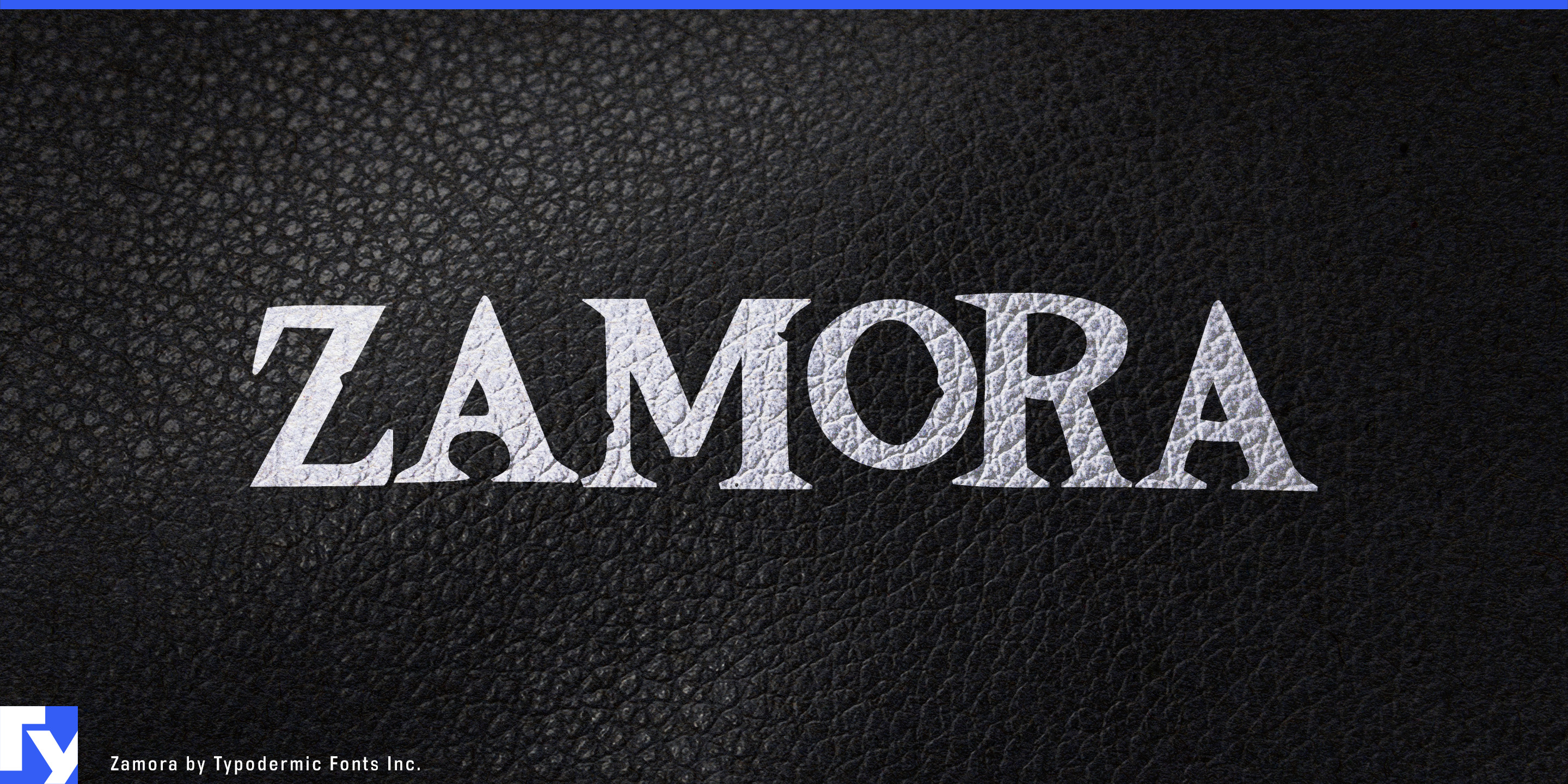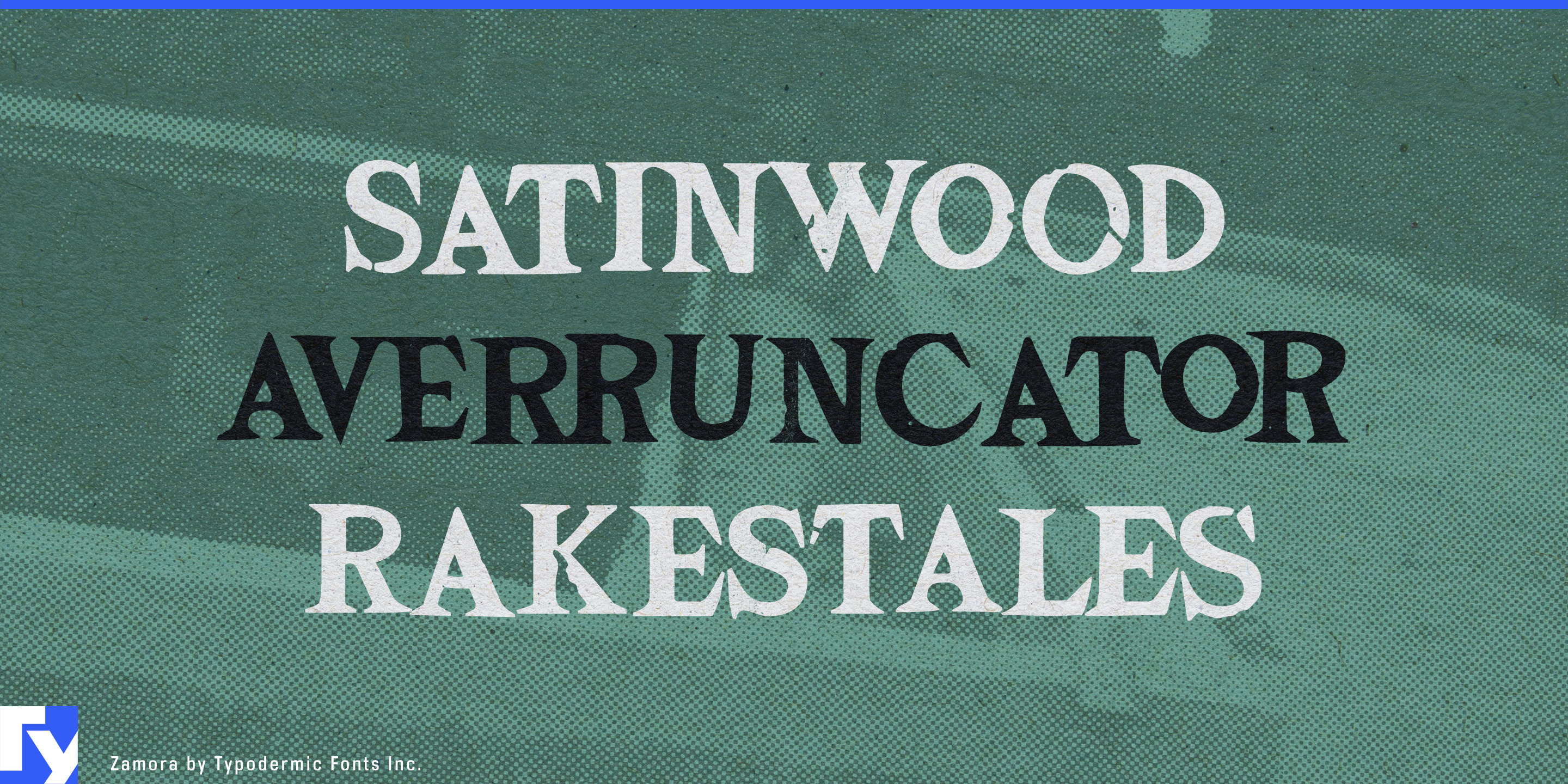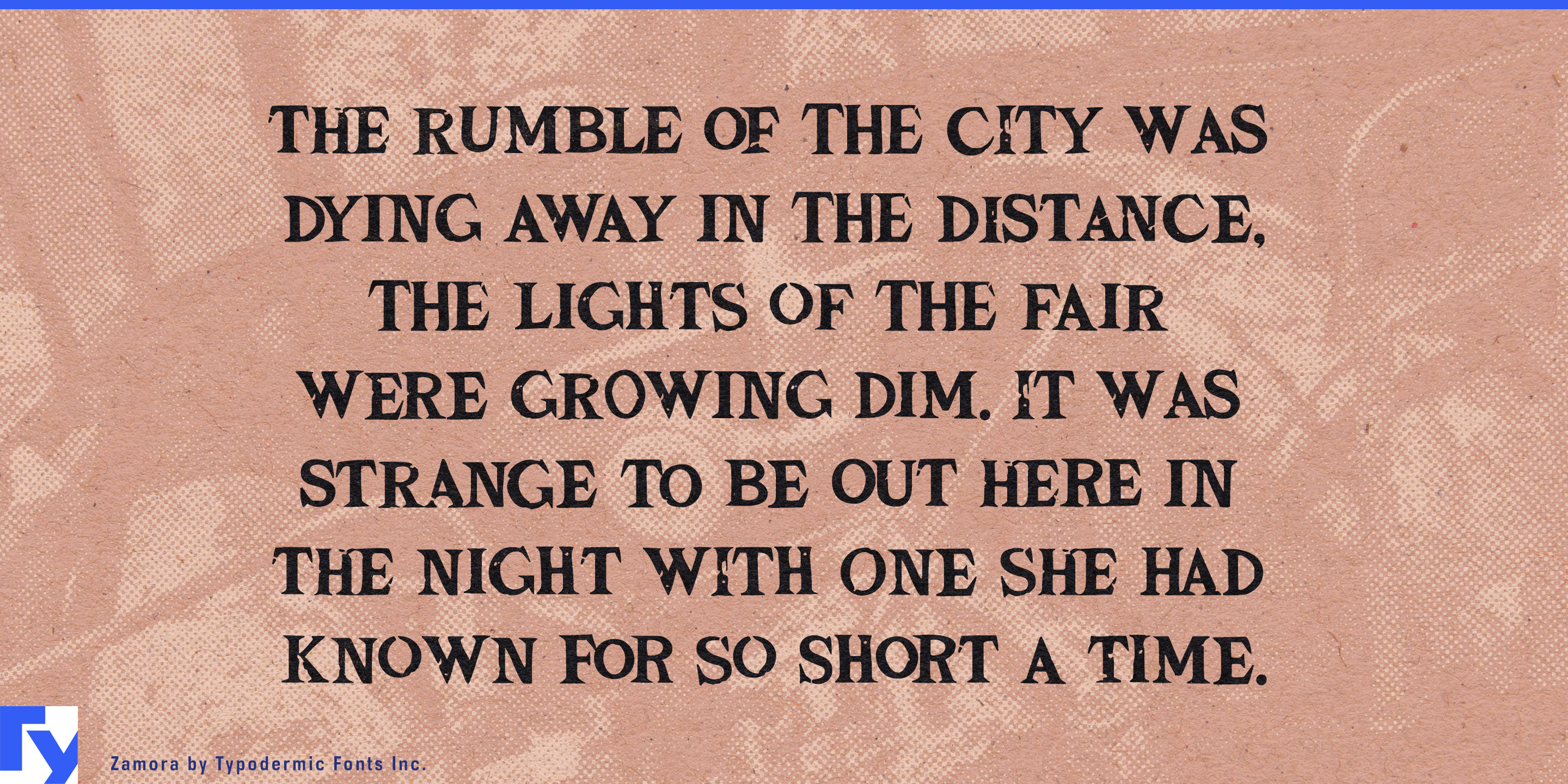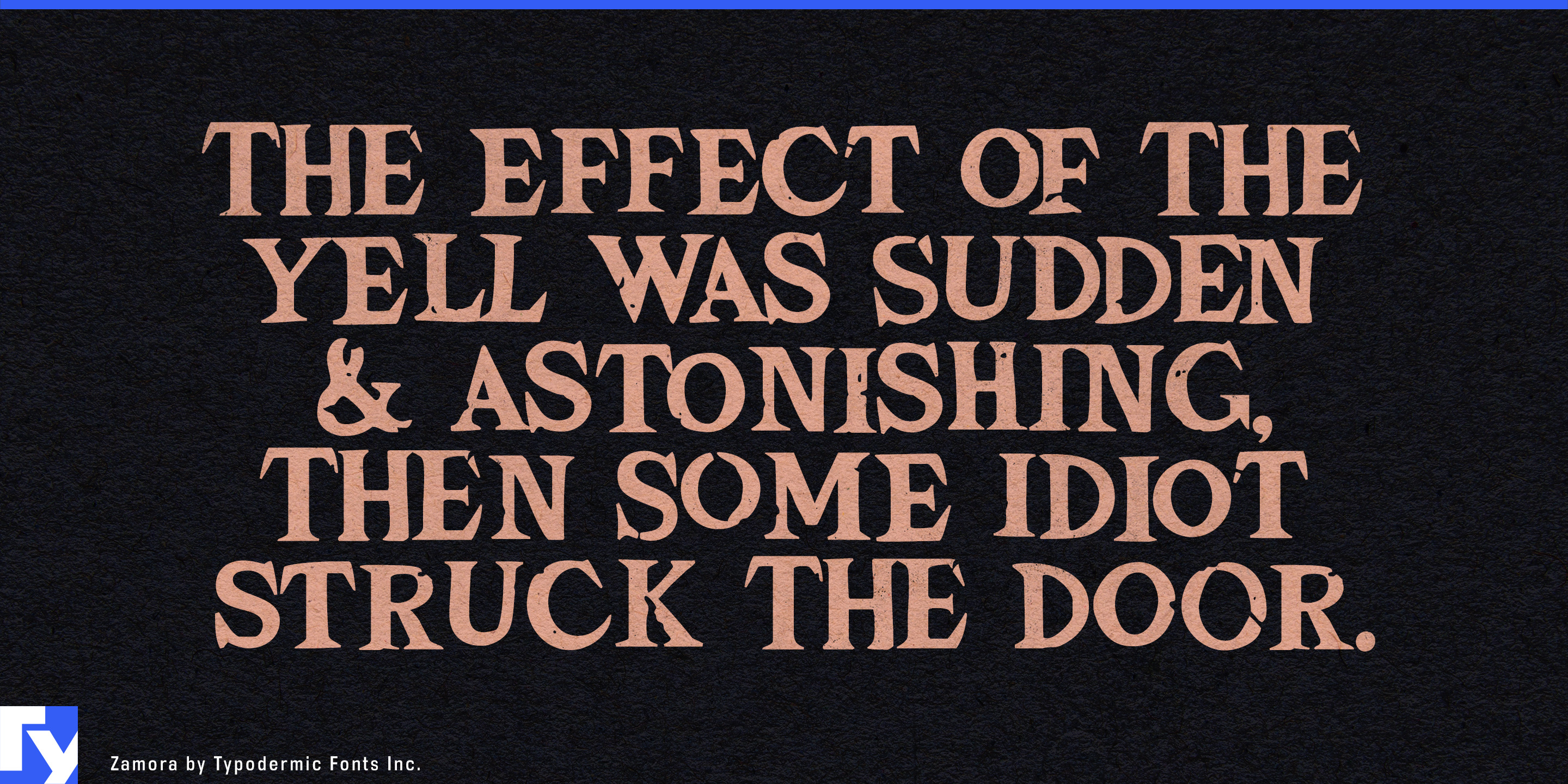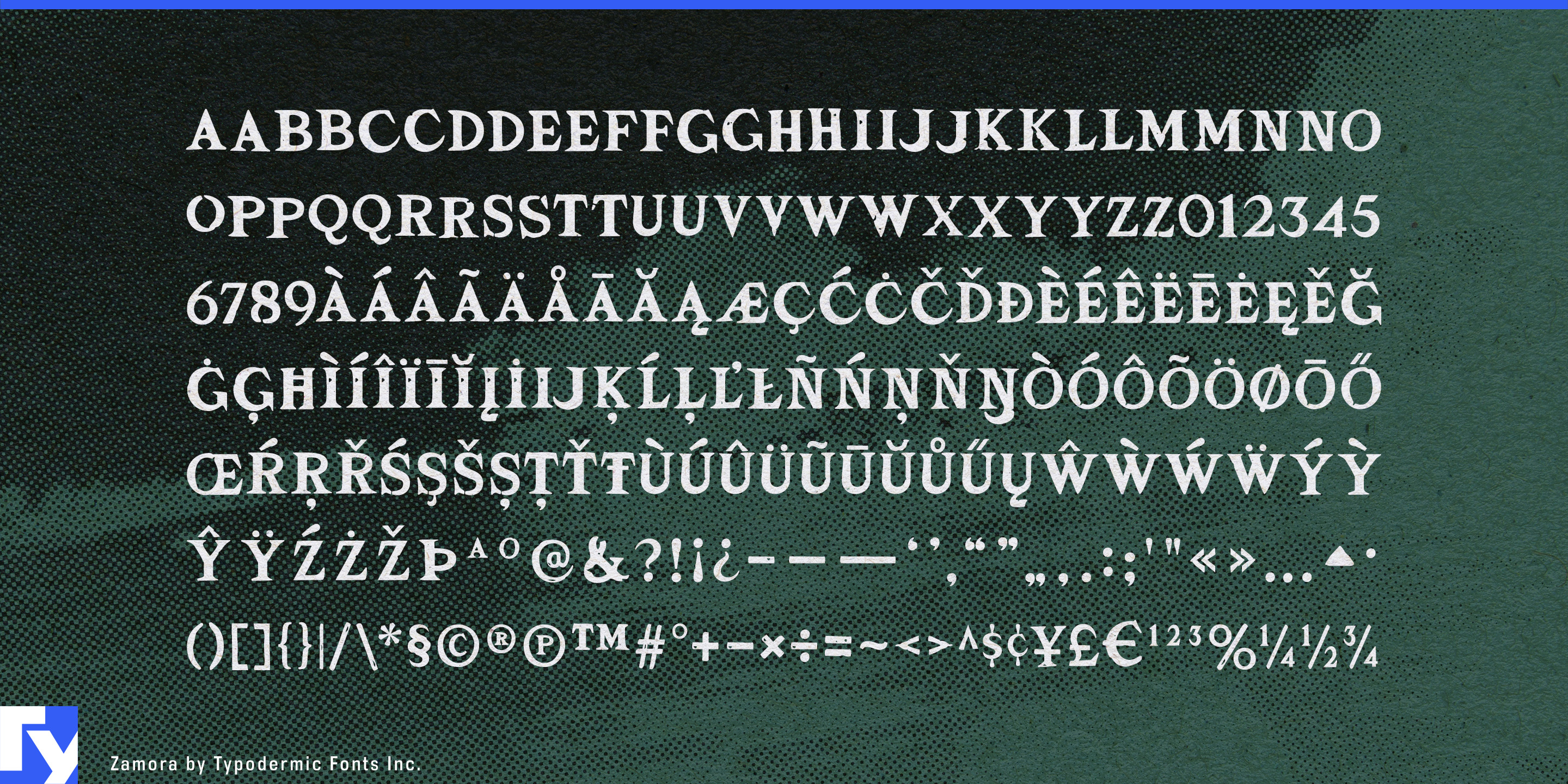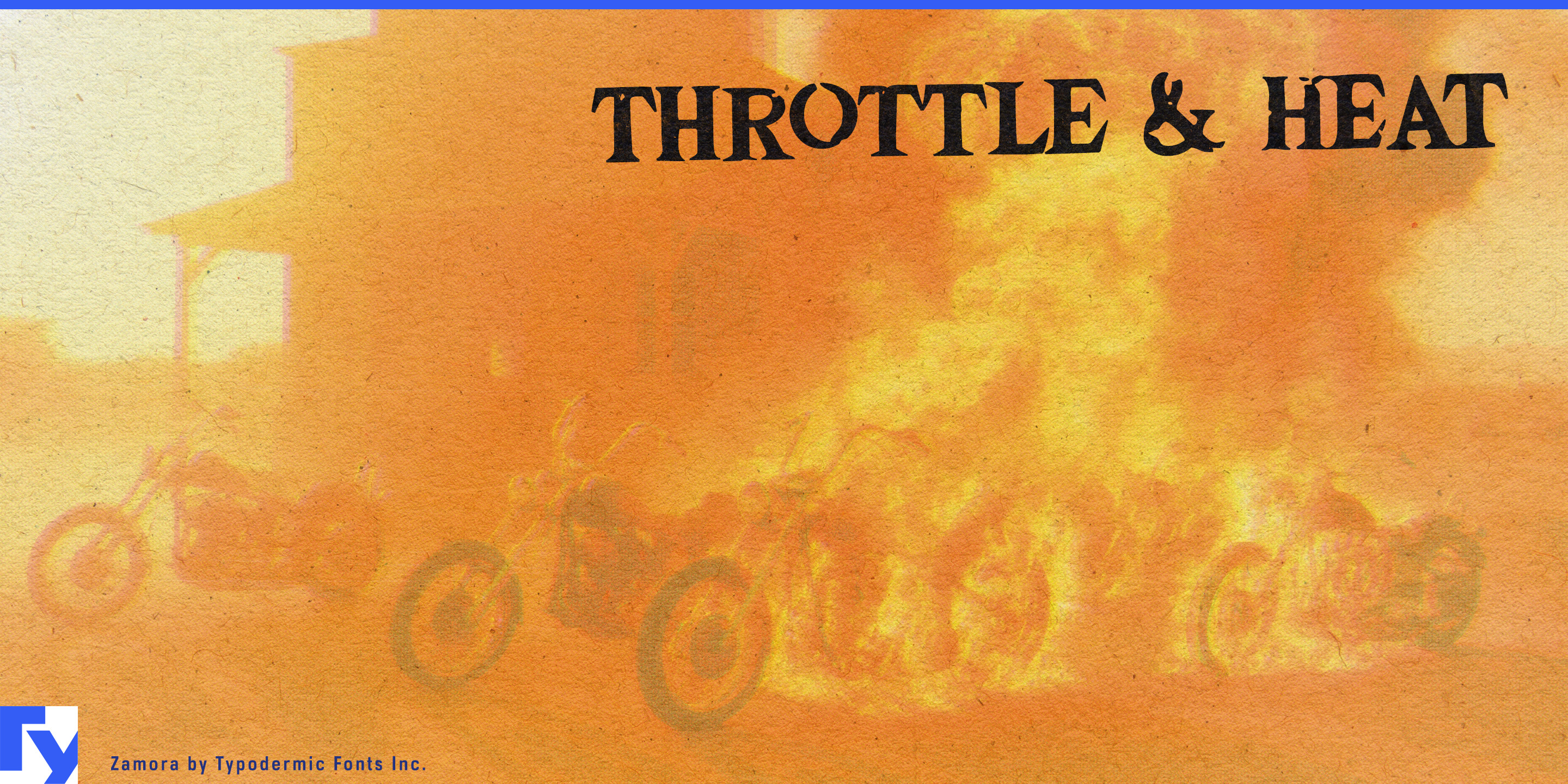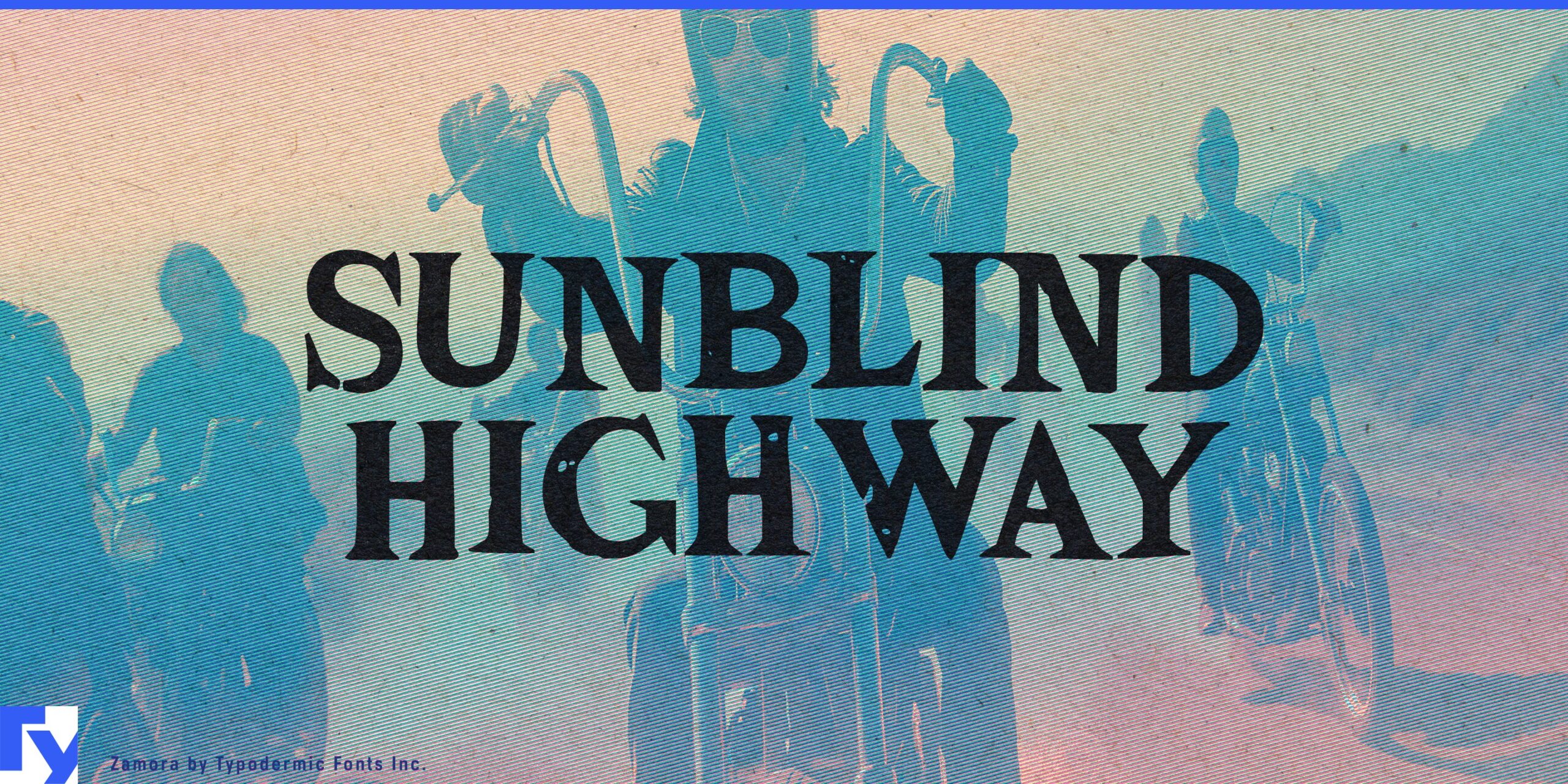
Zamora
Zamora is a rugged Latin-serif typeface that wears its history on its surface. Every letter is chipped, scuffed, and worn like weathered stone, yet its wedge-shaped serifs and balanced proportions keep it sharp and legible. The built-in ligatures help break up repeating patterns, so even large blocks of text keep their organic, handcrafted look.
It’s a natural choice for projects that need grit without losing clarity—think small-batch coffee packaging, rock posters, adventure gear branding, or book covers with a vintage edge. Inspired in part by the road-worn charm of a Tom Petty album sleeve, Zamora carries that same mix of polish and grit: refined enough for print, raw enough to feel alive.